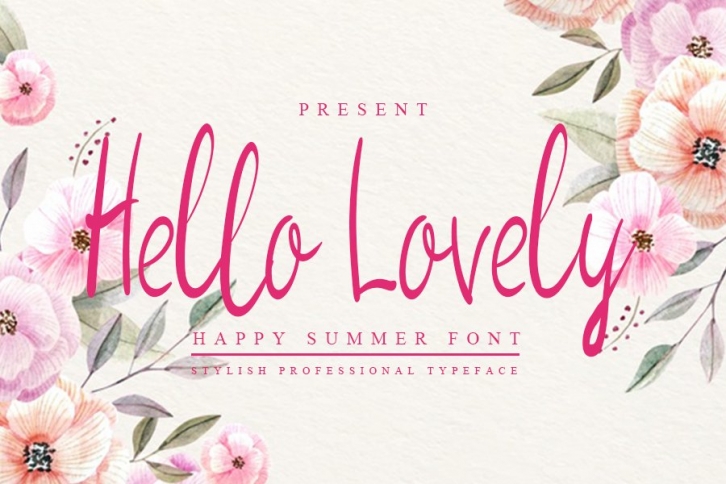
Hello Lovely is a beautiful font that was designed by InermediaSTUDIO. It's a great choice for designers and creatives who need such a font. It was released on August 27, 2020 and the file size is 13.31 MB. Hello Lovely may give a more youthful, expressive and casual look to your project. It is a very beautiful, refined, elegant, and high-quality font.